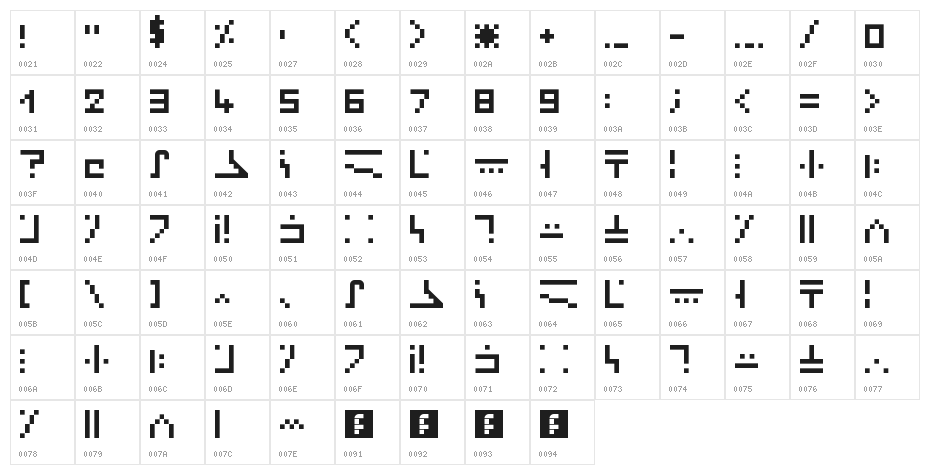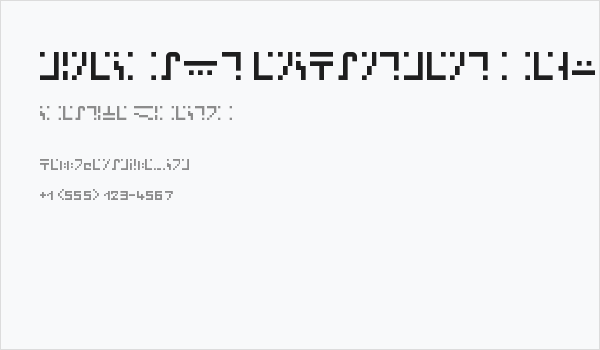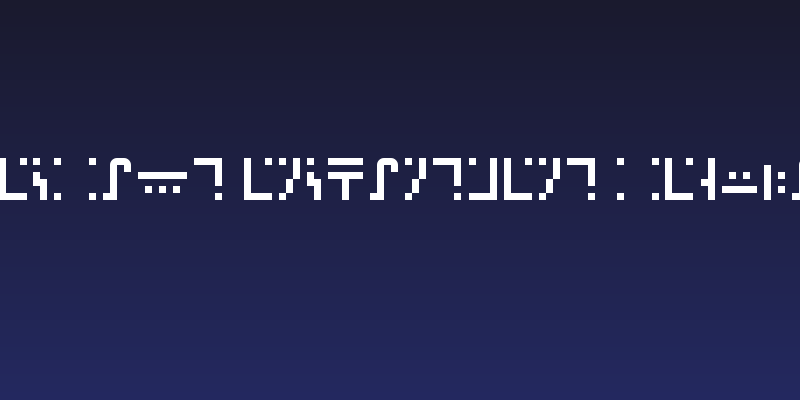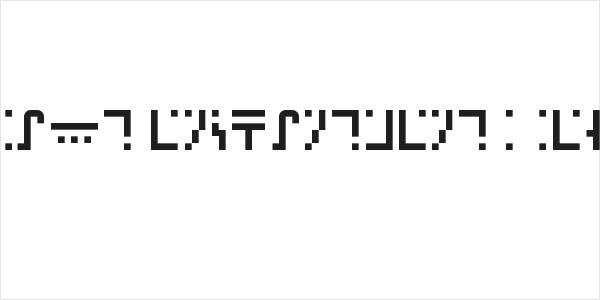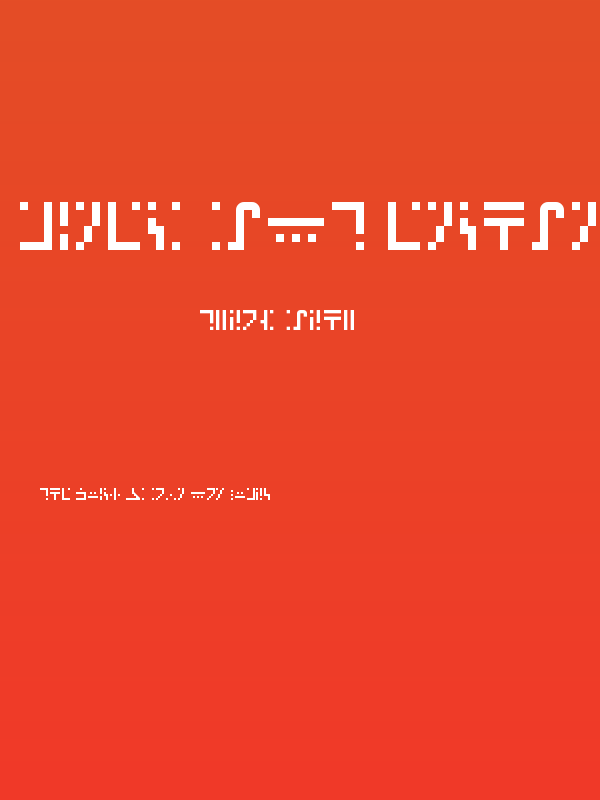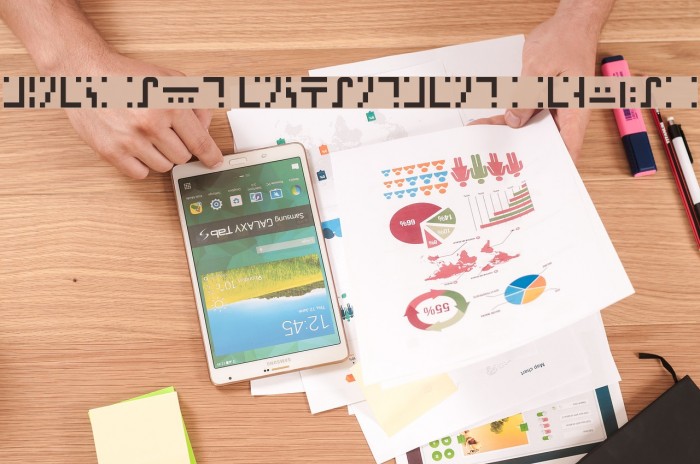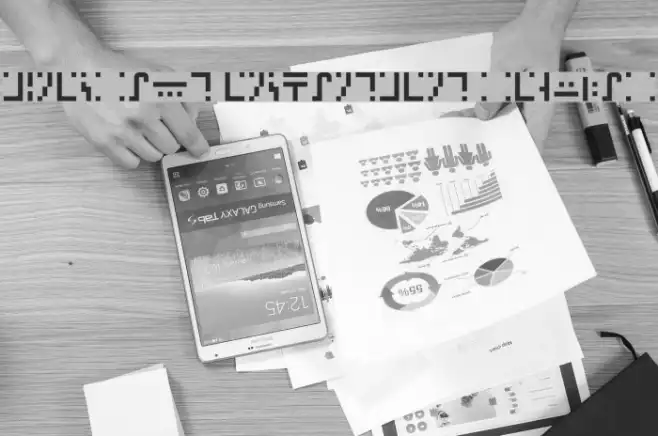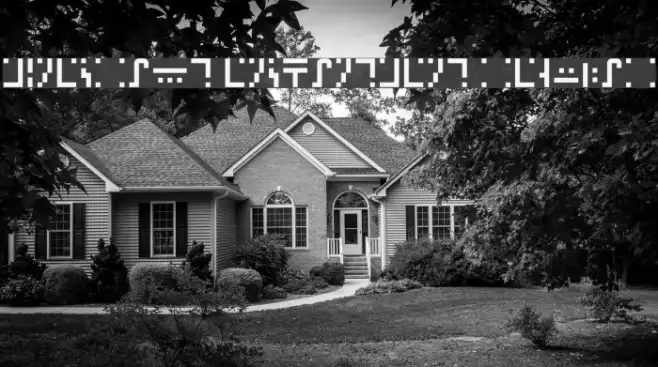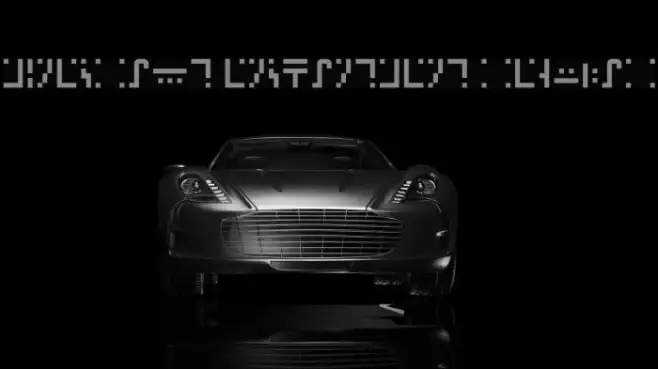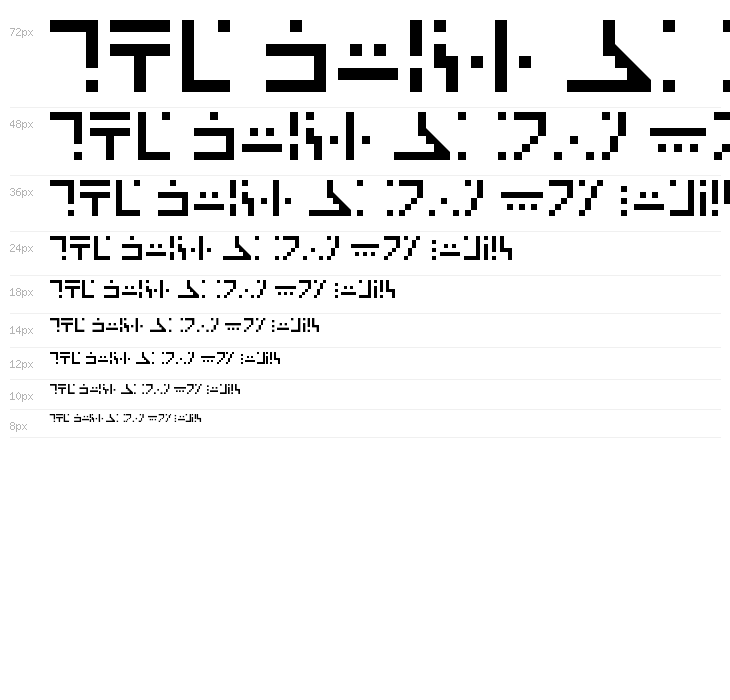
minecraft enchantment Regular Font
minecraft enchantment Regular Description
This font features a pixelated, blocky design reminiscent of retro video game graphics. Each character is constructed with sharp, angular lines and uniform pixel blocks, creating a distinct digital aesthetic. The uppercase and lowercase letters maintain a consistent height, contributing to a cohesive and structured appearance. Numbers and special characters follow the same pixelated style, ensuring visual harmony across all elements. The font's unique style is ideal for projects that aim to evoke a sense of nostalgia or a digital, gaming-inspired theme.
| Use Case | Logos, Posters, Digital Art |
| Proposed Projects | Ideal for video game designs, retro-themed posters, digital art projects, and any creative work that seeks to capture a nostalgic, gaming-inspired look. |